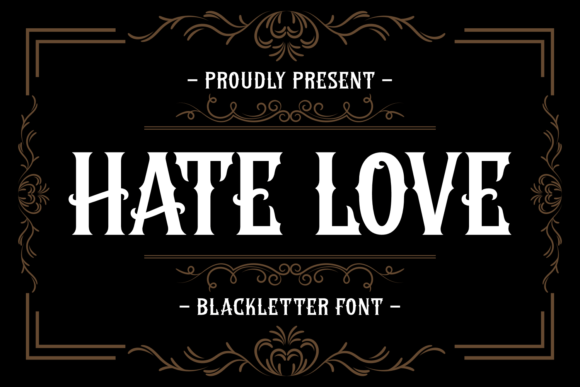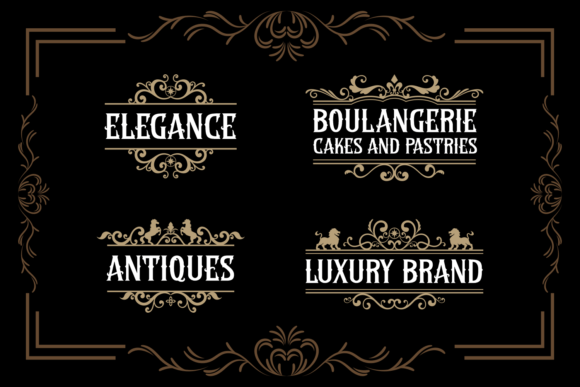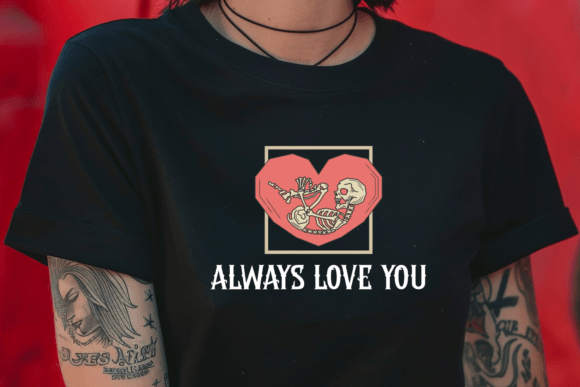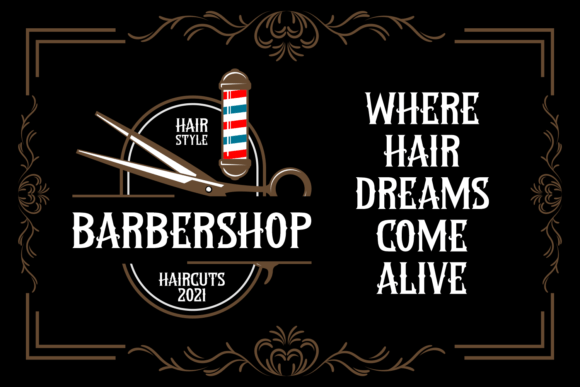
Hate Love Font: Edgy Blackletter for Gothic Logo Design
About the Hate Love Font
Meet Hate Love Font, a stunning font that brings a touch of elegance and professionalism to any design. Hate Love is a charming blackletter typeface. Hate Love is perfect for clothing lines, music labels, or companies with a gothic, medieval, or alternative theme that frequently use blackletter fonts to create an edgy, rebellious vibe.
Hate Love excels in headline treatments, short impactful phrases, and logo design. Its strong character makes it ideal for branding projects targeting a younger demographic with alternative interests, or for packaging that needs a bold, rebellious aesthetic. Avoid using it for large blocks of text or body copy; its intricate details become overwhelming at smaller sizes and in long passages.
The font’s personality is definitively bold and rebellious, with a touch of gothic elegance. Pairing it with a clean sans-serif like Futura or a modern geometric typeface like Bebas Neue will provide a strong contrast, grounding its edginess. For a softer contrast, consider a slightly more traditional serif font such as Garamond or a script font with a less ornate style, to balance the blackletter’s weight.
Using Hate Love sparingly, as an accent, will maximize its impact and avoid visual fatigue. It works best when used to draw attention to key elements within a design.
Hate Love Font Usage Examples
Hate Love Font Example